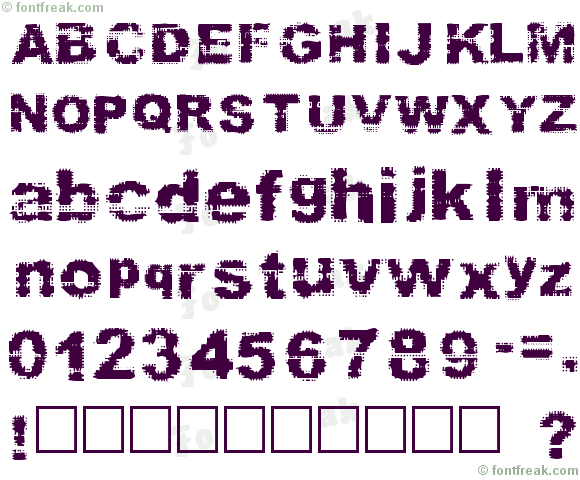
Prefix
Prefix by Divide By Zero is a unique display font that captures attention with its distinctive visual style. This typeface features an irregular, grunge-inspired design that combines both bold and playful elements, making it an ideal choice for creative projects. The stroke weight varies throughout the characters, providing a dynamic contrast that enhances its overall aesthetic. Its spacing is thoughtfully arranged, allowing for legibility while still maintaining a sense of whimsy and artistic flair. The font showcases decorative details that evoke a sense of movement and energy, perfect for those looking to add a touch of creativity to their work.
The Prefix font is versatile enough for various applications. It can be effectively used in movie posters, where a bold statement is crucial, or in promotional materials for music events, where its energetic vibe can resonate with the audience. Additionally, it works well for eye-catching restaurant menus that aim to stand out and attract diners. Graphic designers will appreciate its unique characteristics for branding projects, while content creators can utilize it for social media graphics that need a punch of personality.
Targeting graphic designers, small business owners, and content creators, Prefix offers an exciting option for those looking to break away from conventional typefaces. The fact that Prefix is available as a freeware license adds to its appeal, allowing users to explore its creative potential without the constraints of cost.
What sets the Prefix font apart is its ability to convey both fun and professionalism, making it suitable for a wide range of projects. Whether you’re designing an engaging flyer or crafting an unforgettable logo, the Prefix font free download provides a fresh and distinctive option that will leave a lasting impression.